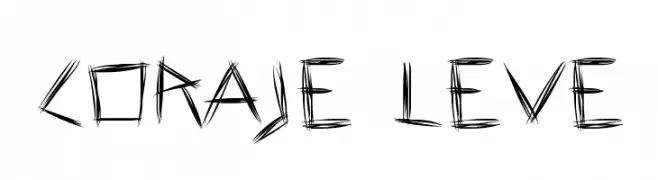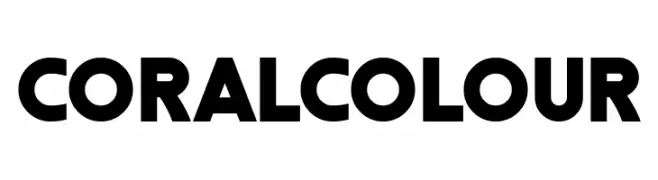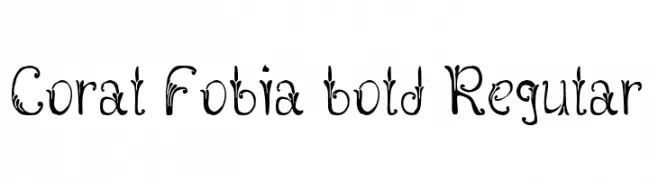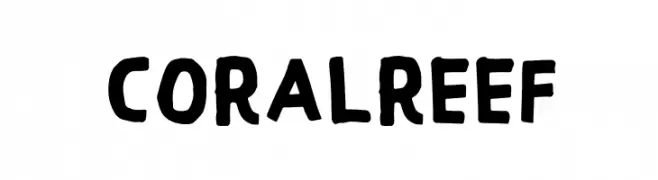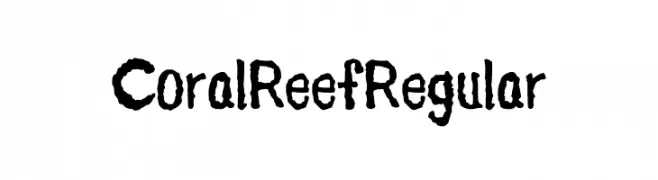
An edgy, hand-drawn font with sketch-like strokes and a dynamic, raw appearance.
A bold, textured font with a distressed, weathered appearance.
A bold, geometric font with uniform stroke widths and a modern aesthetic.
A decorative font with intricate, swirling embellishments and a whimsical style.
A bold, distressed serif font with a vintage, weathered appearance.
A bold, textured font with an organic, coral-like appearance.
A playful, handwritten font with bold strokes and a whimsical style.